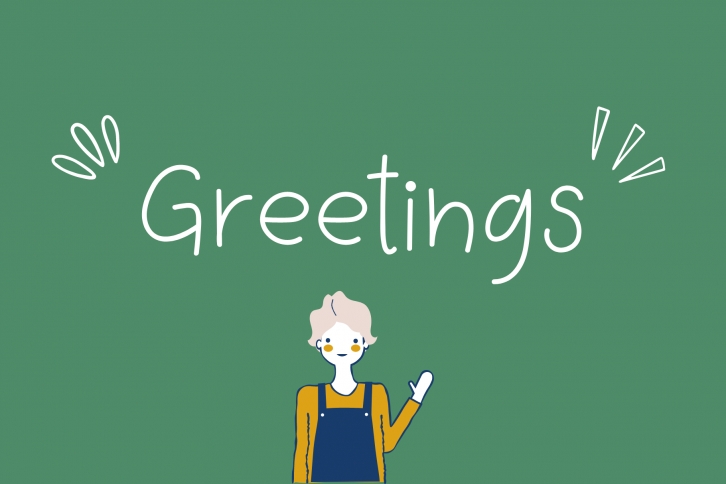
Add some sweetness to your designs with this adorable cute font! It’s perfect for any project that needs a touch of whimsy and charm. From greeting cards and invitations to social media graphics and branding materials, our cute font will bring a playful energy to your work